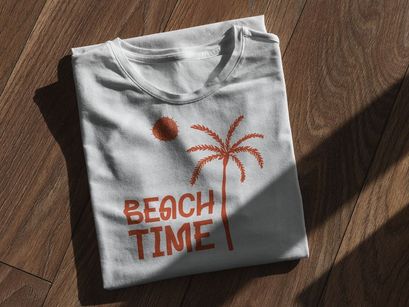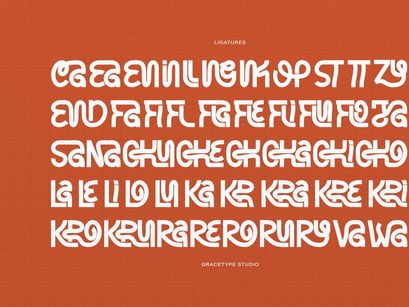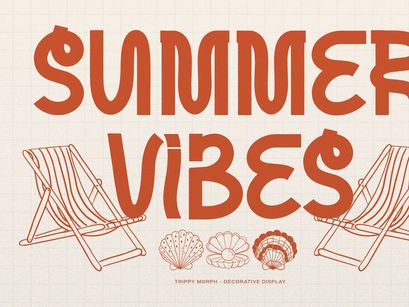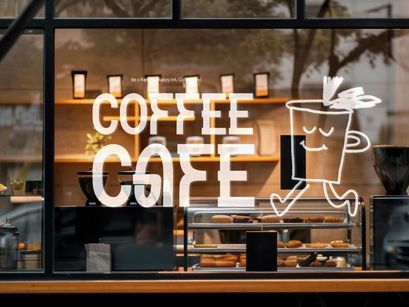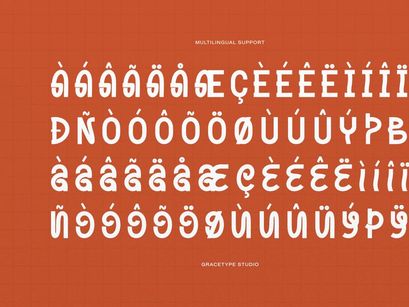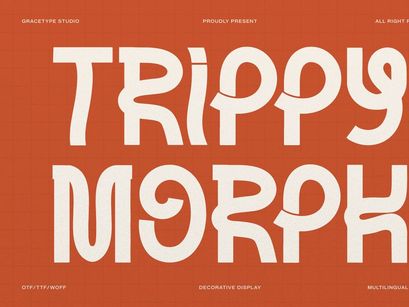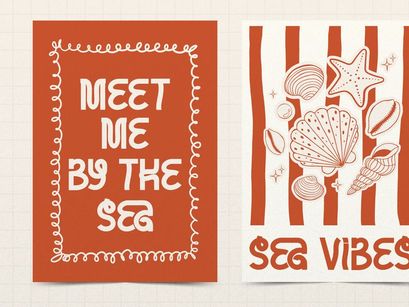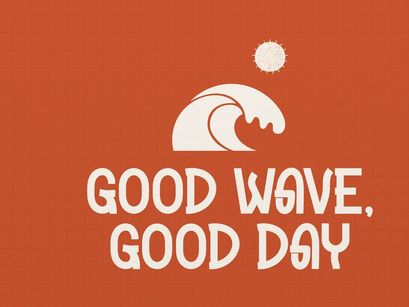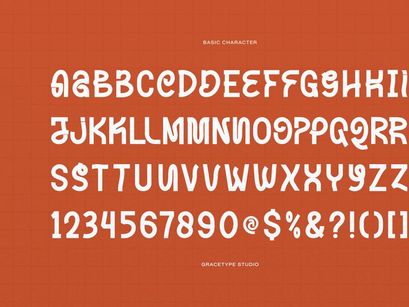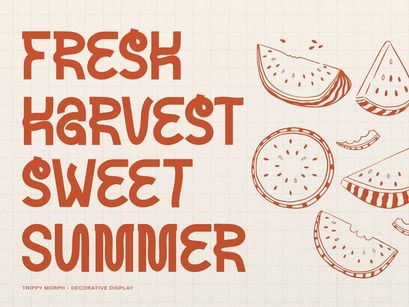
Trippy Morph | Decorative Font, from Gracetypestudio, suitable for any projects such as: logos, branding projects, homeware designs, product packaging, mugs, quotes, posters, shopping bags, t-shirts, book covers, name card, invitation cards, greeting cards, label, photography, watermark, special events, and all your other lovely projects that need a Decorative taste.